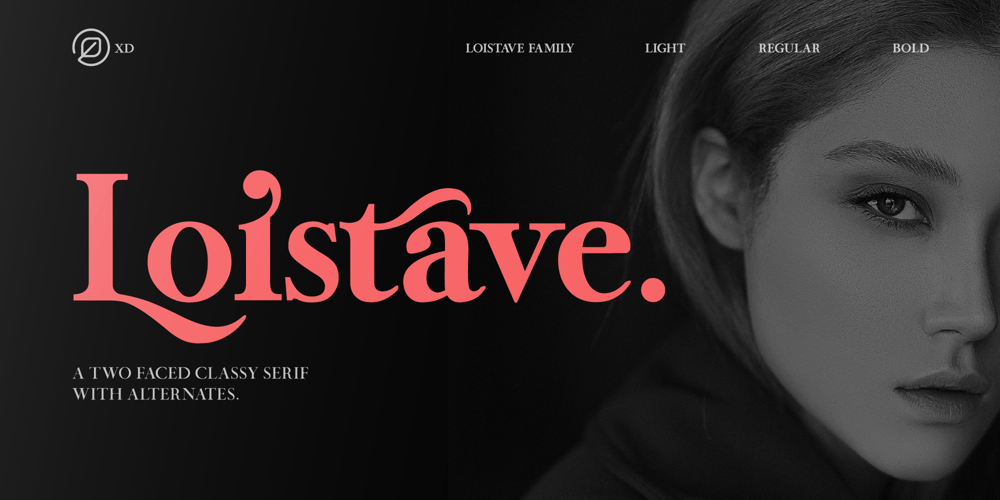
Loistave
Loistave font
Loistave Font Family was designed by Faldy Kudo and published by XdCreative. Loistave contains 6 styles and family package options. Loistave is a two faced classy and modern, elegant and delicate with modest and symmetrical serif. It is defined by smooth curves and is perfect for fashion branding or editorial designs.Add it confidently to your projects, and you will love the results.What’s Loistave included? Uppercase Characters + Alternates Lowercase Characters + Alternates Small Ligatures Numerals Punctuation Multilingual support